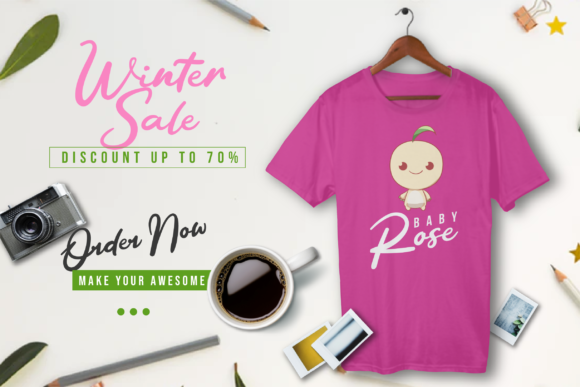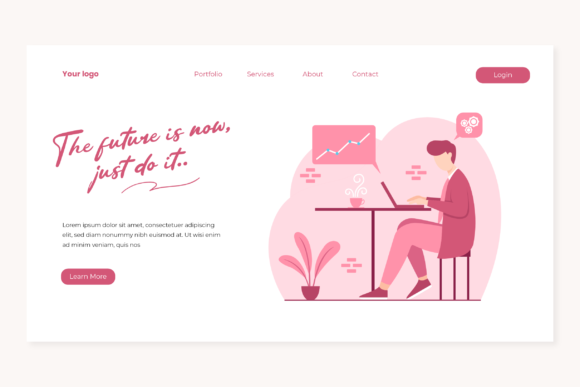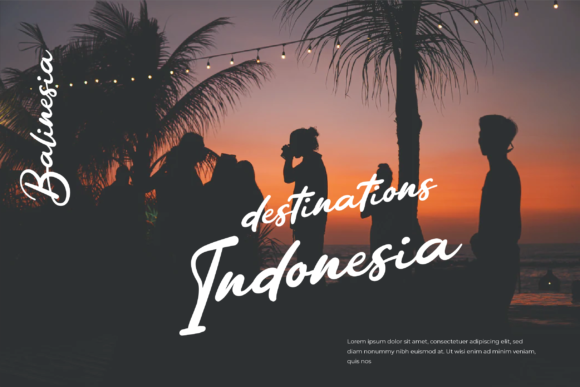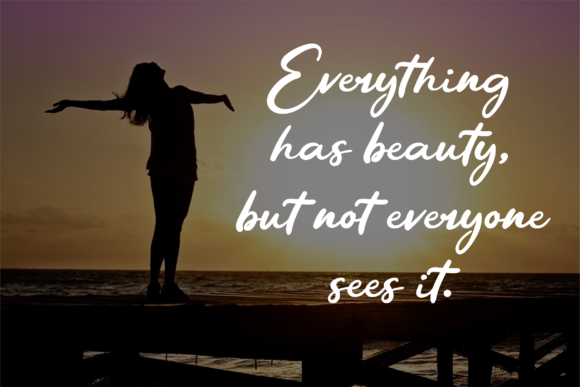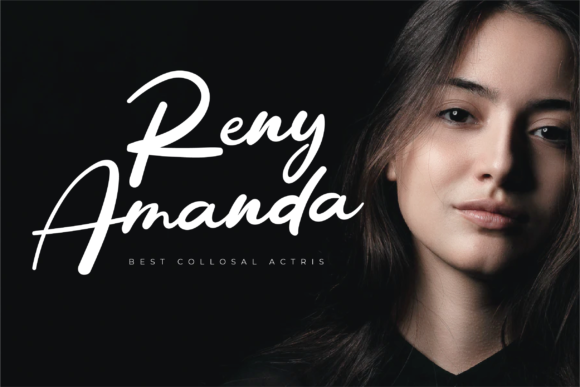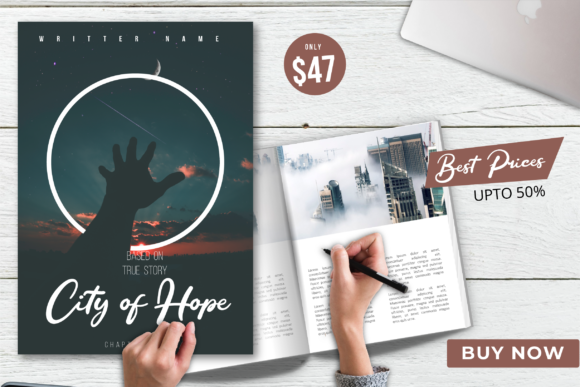
Discover the Charm of Betty Angela Font: Elevate Your Designs with Elegance
Are you a designer or crafter looking for a font that exudes charm and elegance? Look no further than the beautiful Betty Angela Font. This stunning handwritten font is perfect for adding a touch of sophistication to a variety of design projects, from wedding invitations to business cards.
The Beauty of Betty Angela Font
Betty Angela Font feels equally charming and elegant, making it an excellent choice for designers and crafters who want to add a personal touch to their work. Its flowing script and delicate lines evoke a sense of nostalgia and romance, perfect for creating beautiful and memorable designs.
One of the most popular uses for Betty Angela Font is in wedding and event designs. Its elegant and sophisticated feel makes it perfect for:
- Wedding invitations: Make a stunning first impression with beautifully designed wedding invitations that set the tone for your special day.
- Thank you cards: Express your gratitude with style and elegance, using Betty Angela Font to add a personal touch to your thank you cards.
- Event invitations: Whether it’s a baby shower, bridal shower, or anniversary celebration, Betty Angela Font is the perfect choice for creating beautiful and memorable event invitations.
Beyond Wedding Designs: Other Uses for Betty Angela Font
While Betty Angela Font is perfect for wedding and event designs, its uses don’t stop there. This versatile font can be used in a variety of other design projects, including:
- Quotes and posters: Add a touch of elegance to your quotes and posters with Betty Angela Font, making them perfect for social media, blogs, or print.
- Greeting cards: Create beautiful and heartfelt greeting cards for special occasions, such as birthdays, holidays, or anniversaries.
- Logos and branding: Use Betty Angela Font to create a unique and memorable logo for your business or brand, adding a touch of sophistication and elegance.
- Business cards: Stand out from the crowd with beautifully designed business cards that feature Betty Angela Font, perfect for networking and making a lasting impression.
Why Designers and Crafters Love Betty Angela Font
So why do designers and crafters love Betty Angela Font? Here are just a few reasons:
- Unique and elegant: Betty Angela Font offers a unique and elegant look that’s hard to find in other fonts, making it perfect for designers and crafters who want to stand out.
- Versatile: With its wide range of uses, Betty Angela Font is a versatile font that can be used in a variety of design projects, from wedding invitations to business cards.
- Easy to use: Betty Angela Font is easy to use and pairs well with a variety of other fonts, making it perfect for designers and crafters of all skill levels.
In conclusion, Betty Angela Font is a beautiful and elegant font that’s perfect for designers and crafters who want to add a touch of sophistication to their work. With its wide range of uses, from wedding invitations to business cards, this versatile font is sure to become a favorite in your design arsenal. So why wait? Discover the charm of Betty Angela Font today and elevate your designs with elegance.